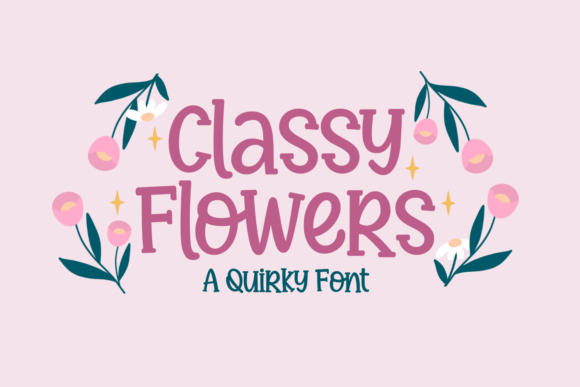
As designers, we’ve all been there – staring at a blank canvas, trying to bring our creative ideas to life. Suddenly, a burst of inspiration hits, and we know exactly what we need to make our design truly special. For me, it was a quirky illustration of a smiling flower that sparked the idea to use a certain font to add a touch of playfulness to my project. And that’s when I discovered the Classy Flowers Font – a cute, playful, and quirky serif font that’s perfect for adding a dash of joy to your designs.
The Classy Flowers Font is a versatile and charming font that’s ideal for cartoon-related designs, children’s games, quotes, titles, brand names, book covers, posters, and more. Its unique blend of elegance and whimsy makes it a valuable asset for designers looking to add a touch of personality to their work. Whether you’re working on a children’s book or a brand identity, the Classy Flowers Font is sure to bring a smile to your audience’s faces.
Key Features of Classy Flowers Font
- Unique Characteristics: Classy Flowers Font features elegant, hand-drawn designs that evoke a sense of sophistication and refinement. The font includes a variety of flowers, leaves, and other elements that can be combined to create unique and eye-catching designs.
Classy Flowers Font Review
I recently had the chance to work with the Classy Flowers Font, and overall, I’m quite impressed. ✨ The font has a beautiful, elegant feel that’s perfect for any project that needs a touch of sophistication.
The font’s versatility is one of its strongest points. It works well in both serif and sans-serif contexts, and the subtle floral details add a unique touch to any design. ✨ The font is also highly legible, making it easy to read and understand.
While the Classy Flowers Font is generally a great choice, there are a few limitations to consider. ⚠️ The font’s design is a bit on the ornate side, which may not be suitable for projects where simplicity is key. Additionally, the font’s floral elements may not be easily customizable, which could be a drawback for designers who like to have full control over their typography.
Despite its limitations, I would still highly recommend the Classy Flowers Font to designers looking for a elegant, sophisticated font. The font’s unique details and versatility make it a great choice for a wide range of projects, from wedding invitations to luxury branding.
- Beautiful, elegant design
- Highly legible
- Works well in serif and sans-serif contexts
- Unique floral details
The Classy Flowers Font is perfect for:
- Floral-themed designs and branding
- High-end product packaging and labels